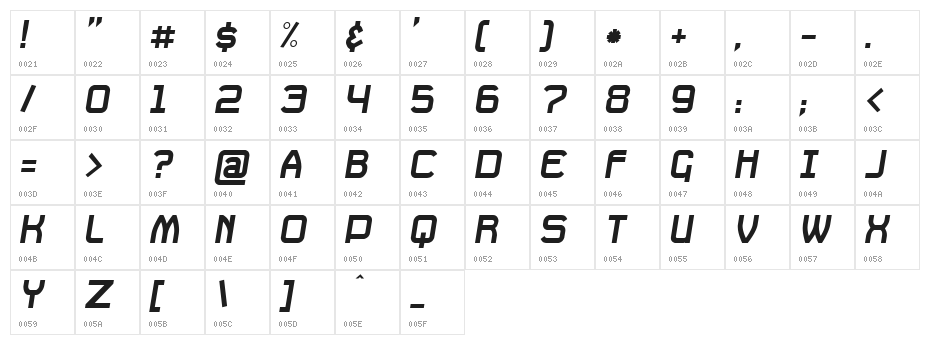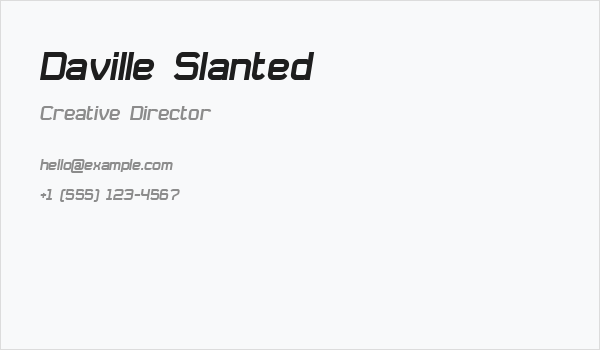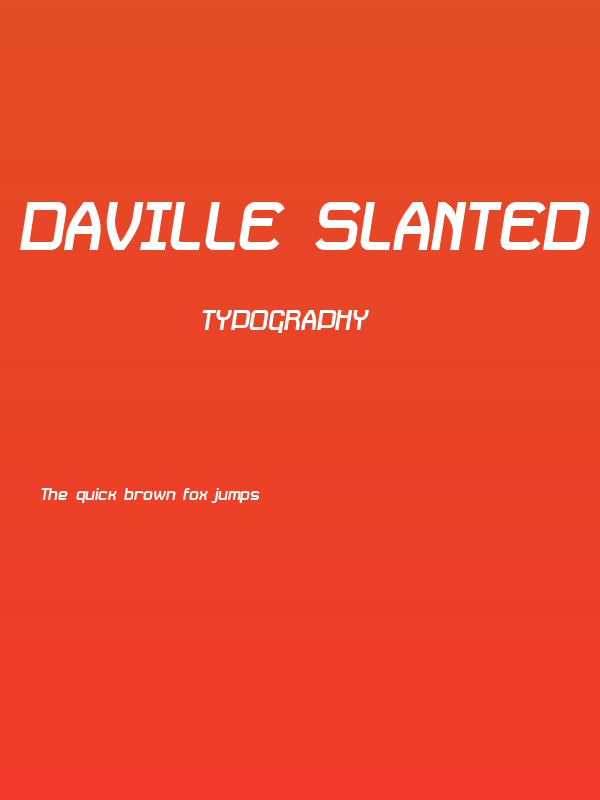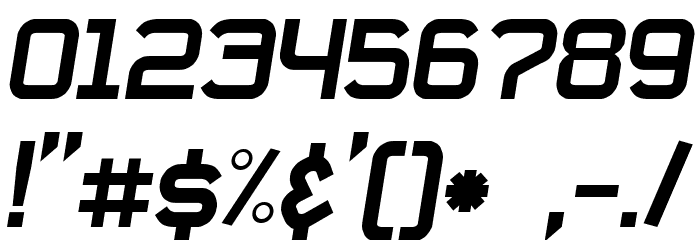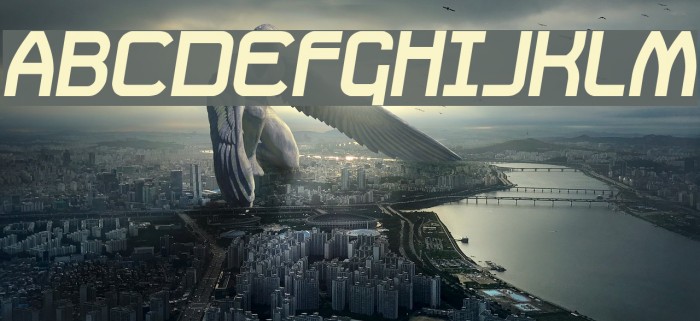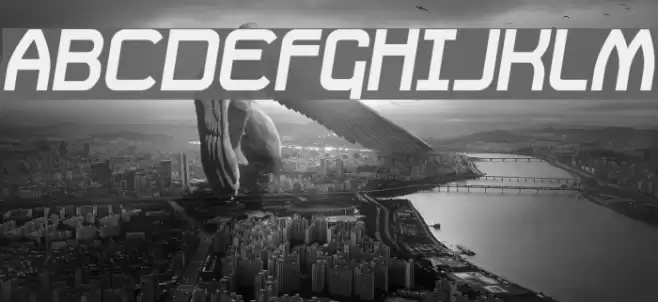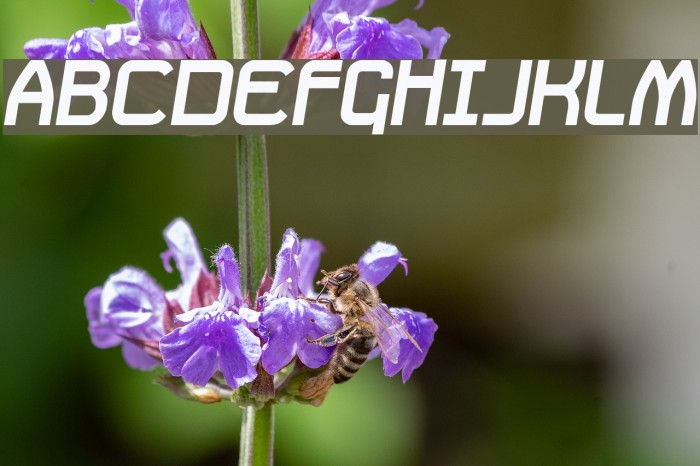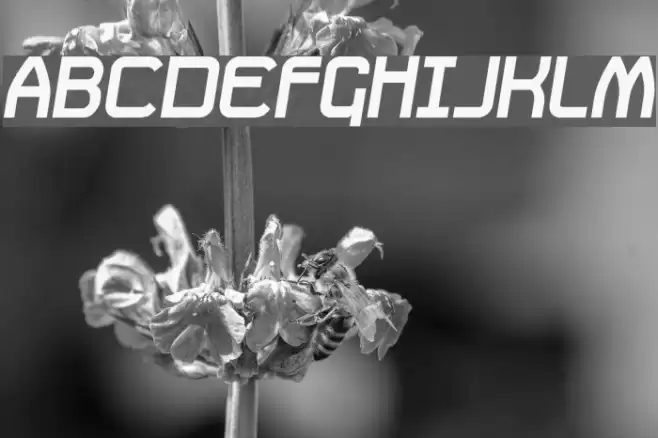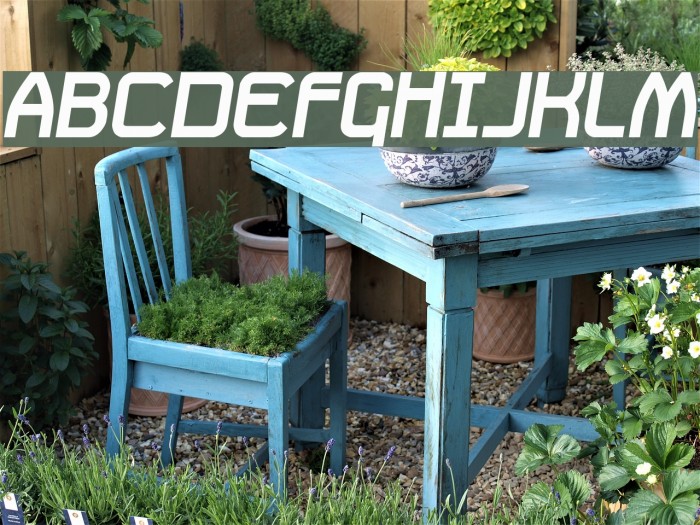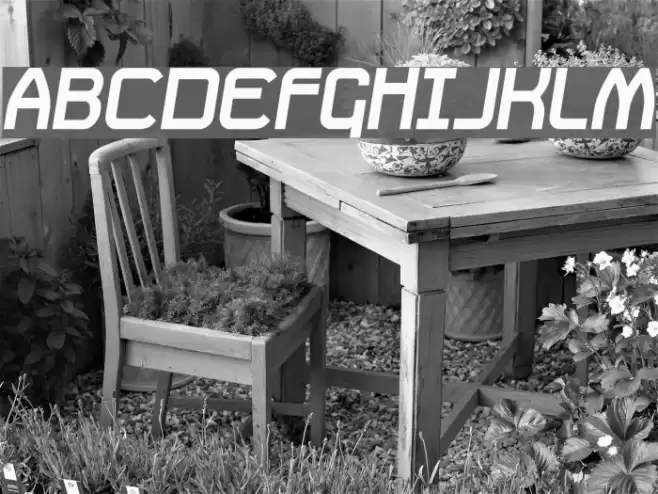
Daville Slanted Font
Daville Slanted Description
This font features a modern, slanted design with a sleek and dynamic appearance. The characters are slightly italicized, giving a sense of motion and speed. The uppercase letters are bold and assertive, while the lowercase letters maintain a consistent style that complements the uppercase. The numerals are clear and distinct, ensuring readability. Special characters are designed with the same slanted style, maintaining uniformity across the font. The overall look is contemporary and suitable for projects that require a forward-thinking and energetic vibe.
| Proposed Projects | Ideal for sports branding, automotive advertisements, tech company logos, and dynamic event posters. |